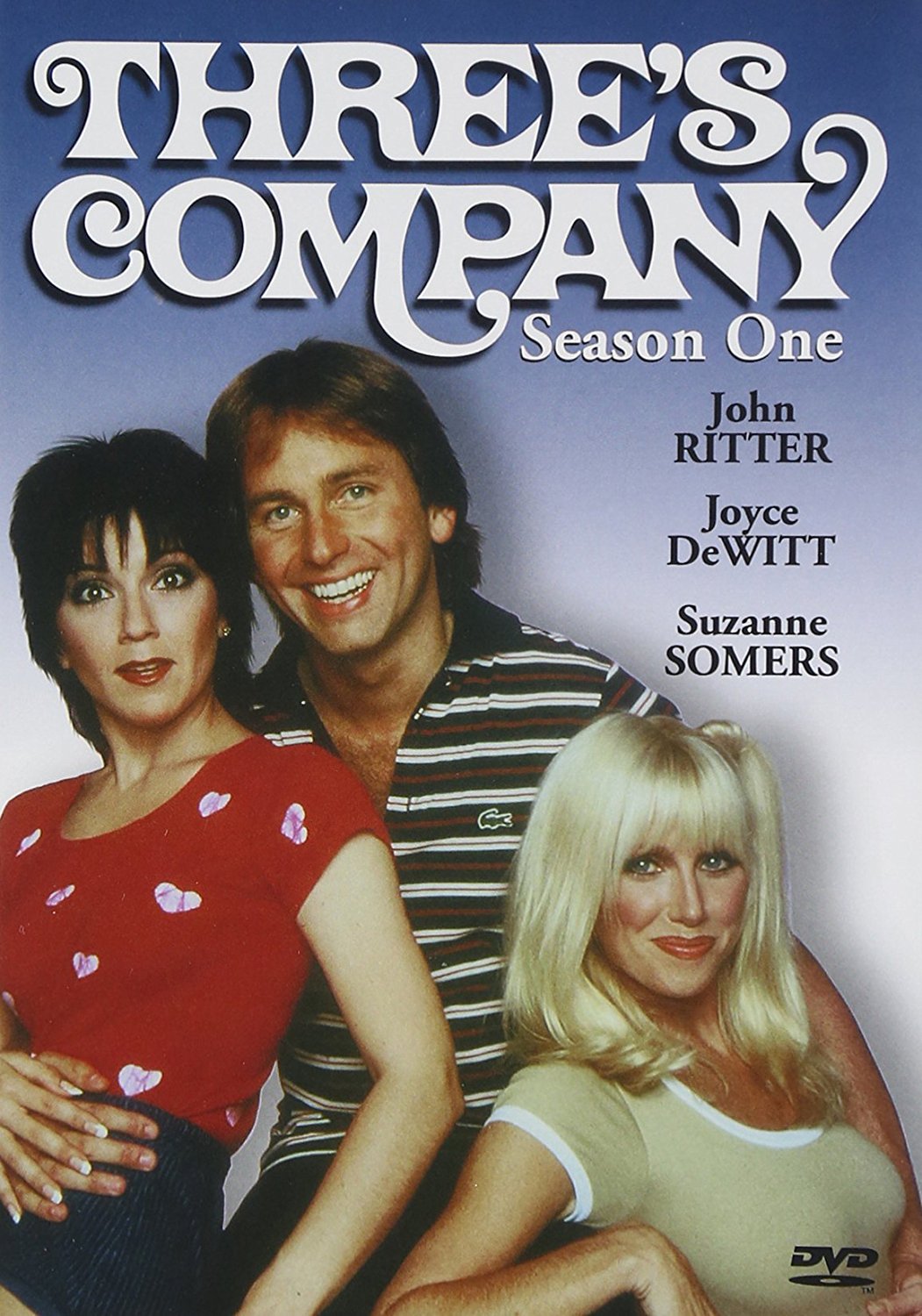
Three's Company Font
ComedyThree’s Company is a classic American sitcom that aired from 1977 to 1984. It follows the comedic misadventures of three roommates living together in a Santa Monica apartment complex.
The title of the TV series ''Three’s Company'' is probably set in Tomato by Canada Type. Tomato Grotesk is a modern grotesque family with simple geometric shapes and powerful contrast for display use.